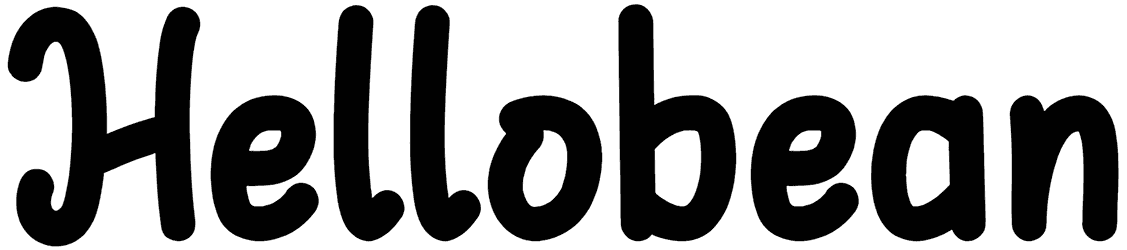
Hellobean Font
Having a wonderful masterpiece, the same as Hellobean, is one of the main requirements of designing sturdy and timeless graphic content. This script can boost the quality of your artwork by adding a vibe of personalization, jauntiness, tenderness, or drama to it.
Aside from not supporting numbers, due to its rounded and crooked characters, this handwritten font looks perfect for gift cards, stickers, social media posts, storybook illustrations, and digital banners.